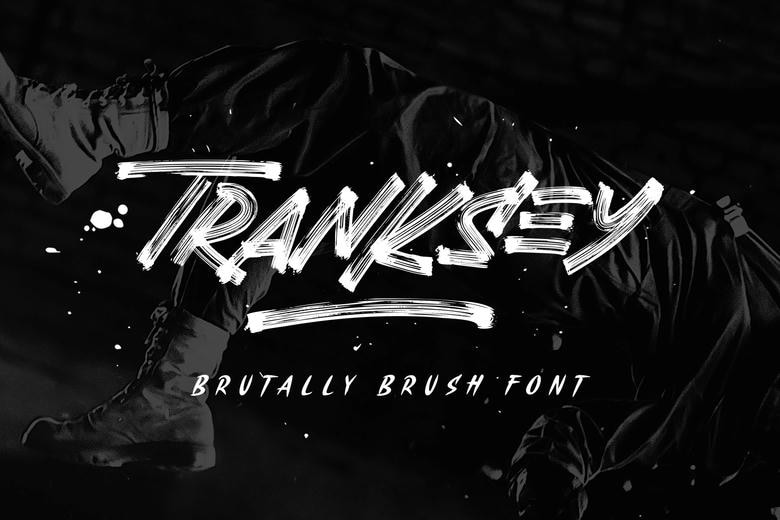
Tranksey Font
Tranksey is the brand new fresh amazing brush font you will ever need for your display and advertising projects! This is an extremely detailed font that has a strength, speed and energy that should be ideally suited for merchandise, decals, posters etc.
Tranksey is fully capitalized script type. It also uses a great number of integers and special symbols helpful for your custom design. But with multilingual support, you can use this multi-purpose typeface for your international projects!
Tranksey Brush Font